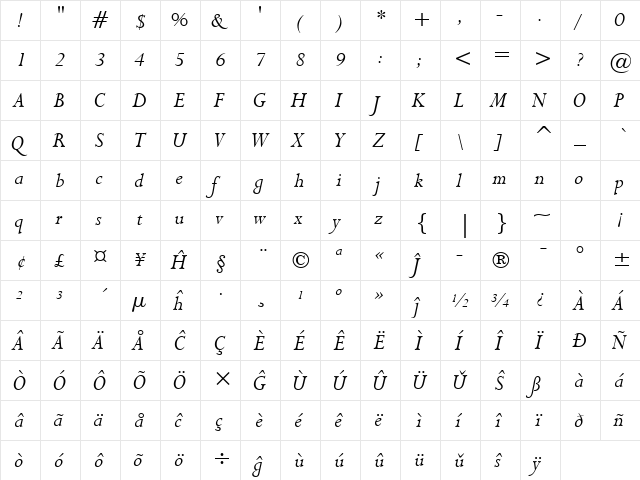
Lapidary333 BT Eo Italic
Design Context for Lapidary333 BT Eo Typeface
Lapidary333 BT Eo offers clean, dependable letterforms without strong stylistic allegiance, making it a practical choice for designers who need flexibility. The dynamic lean of this cut emphasises speed and emphasis in any layout.
Pro Tip: Use Lapidary333 BT Eo for emphasis, pull quotes, and subheadings where its slanted energy can add rhythm to the layout.